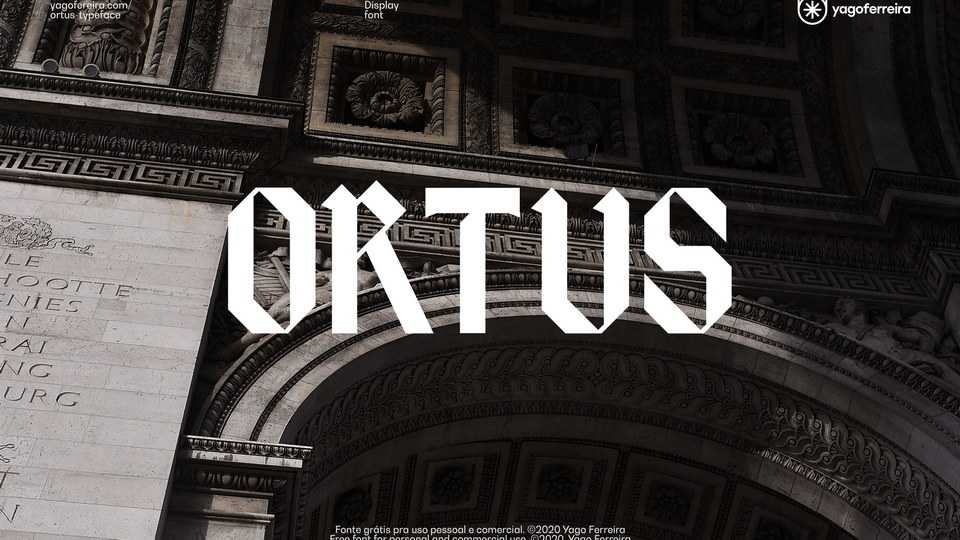
Download Ortus font, a condensed black letter display typeface developed for expressive titles. Its straight lines make Ortus font more condensed making the writing more imposing.